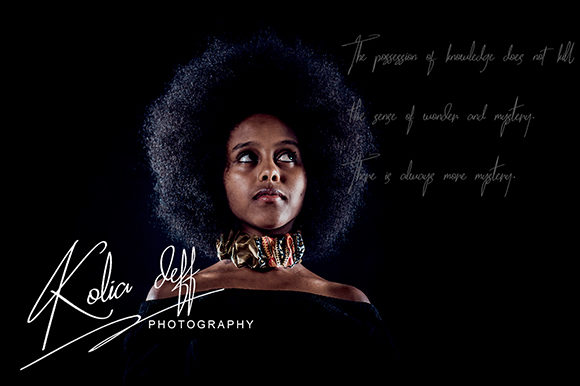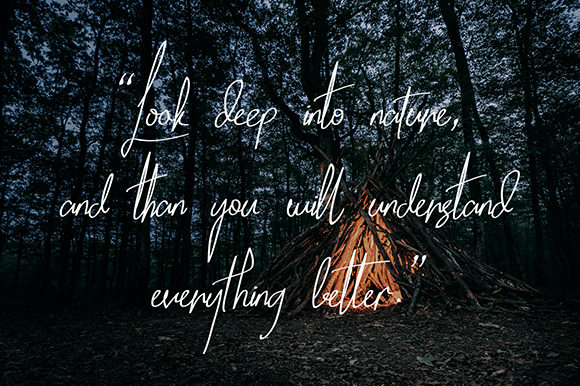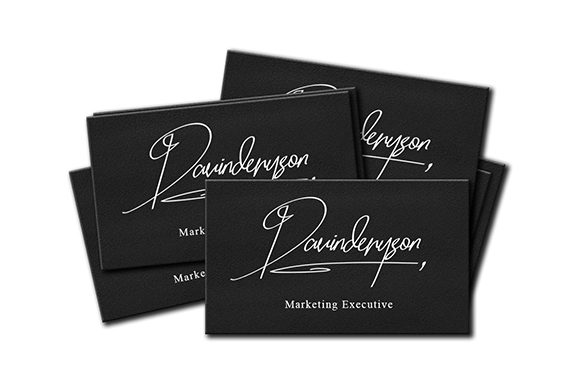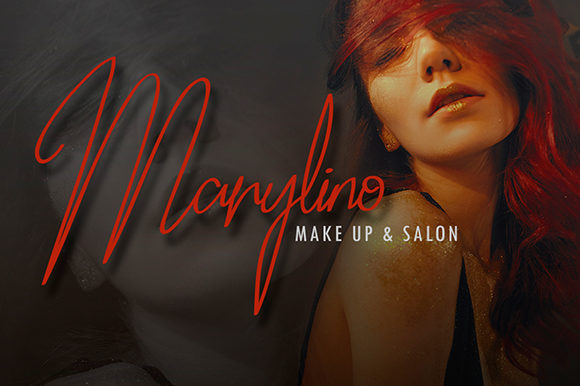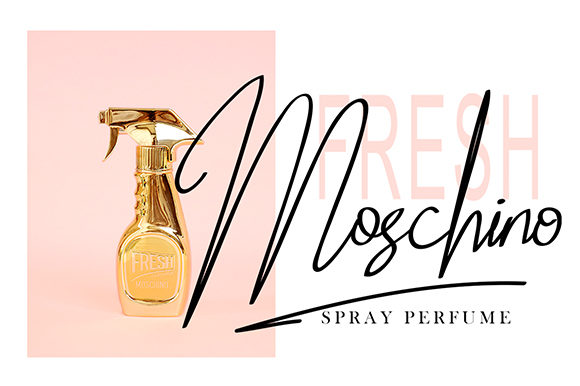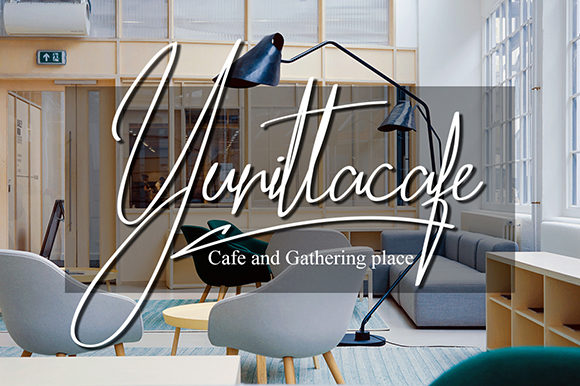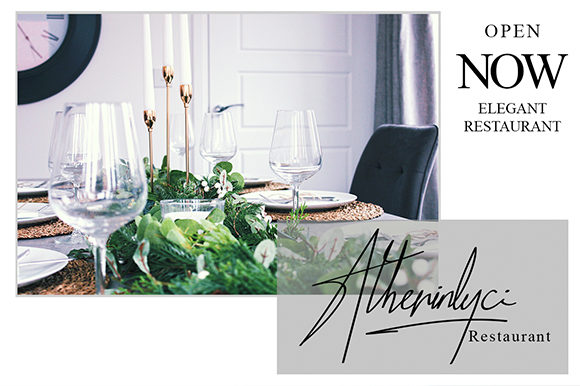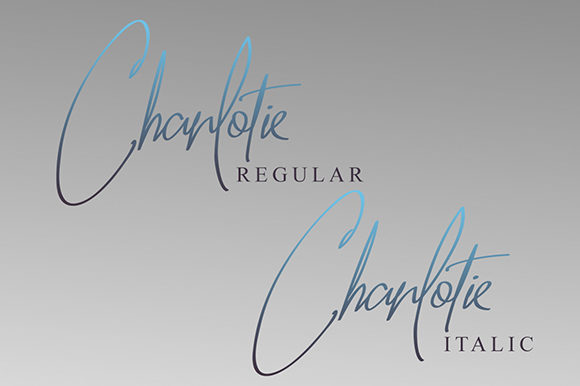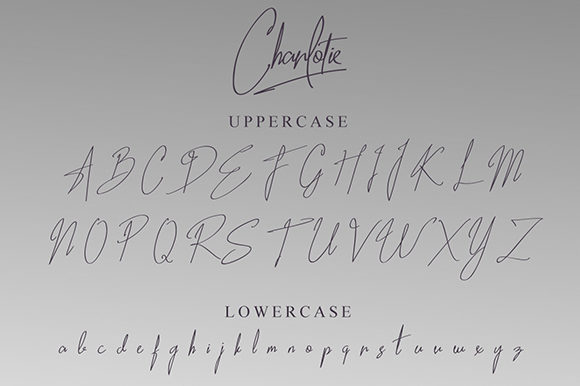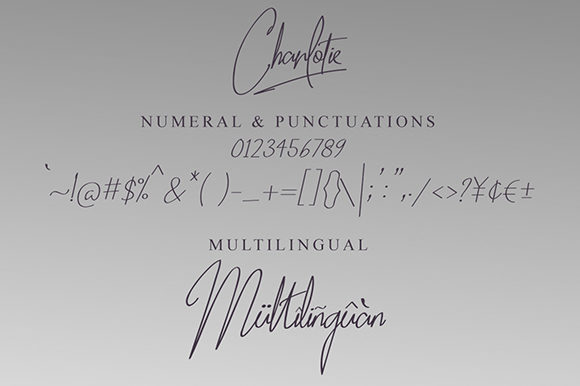
Charlotie Font
About Charlotie Font
Charlotie is a handwritten font which is now equipped with swashes. It has a natural writing style and is perfect for logos, printed quotes, invitations, covers, canopies, posters, and much more!